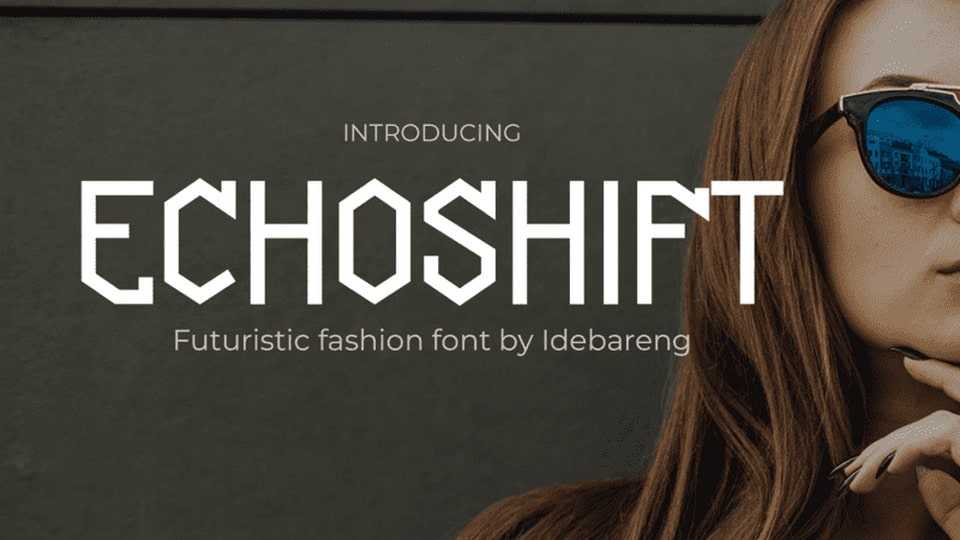
Download Echoshift font, the perfect display typeface for fashion-forward designs that demand attention. This futuristic font is the perfect choice for fashion websites, blogs, and social media accounts that want to make a bold statement.
Designer: IDEBARENG